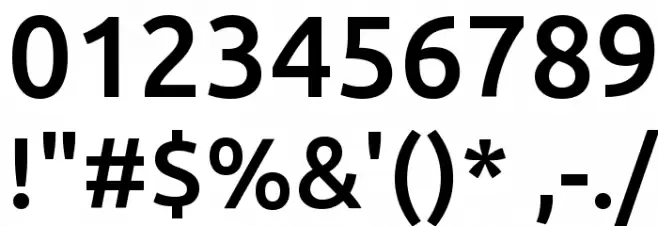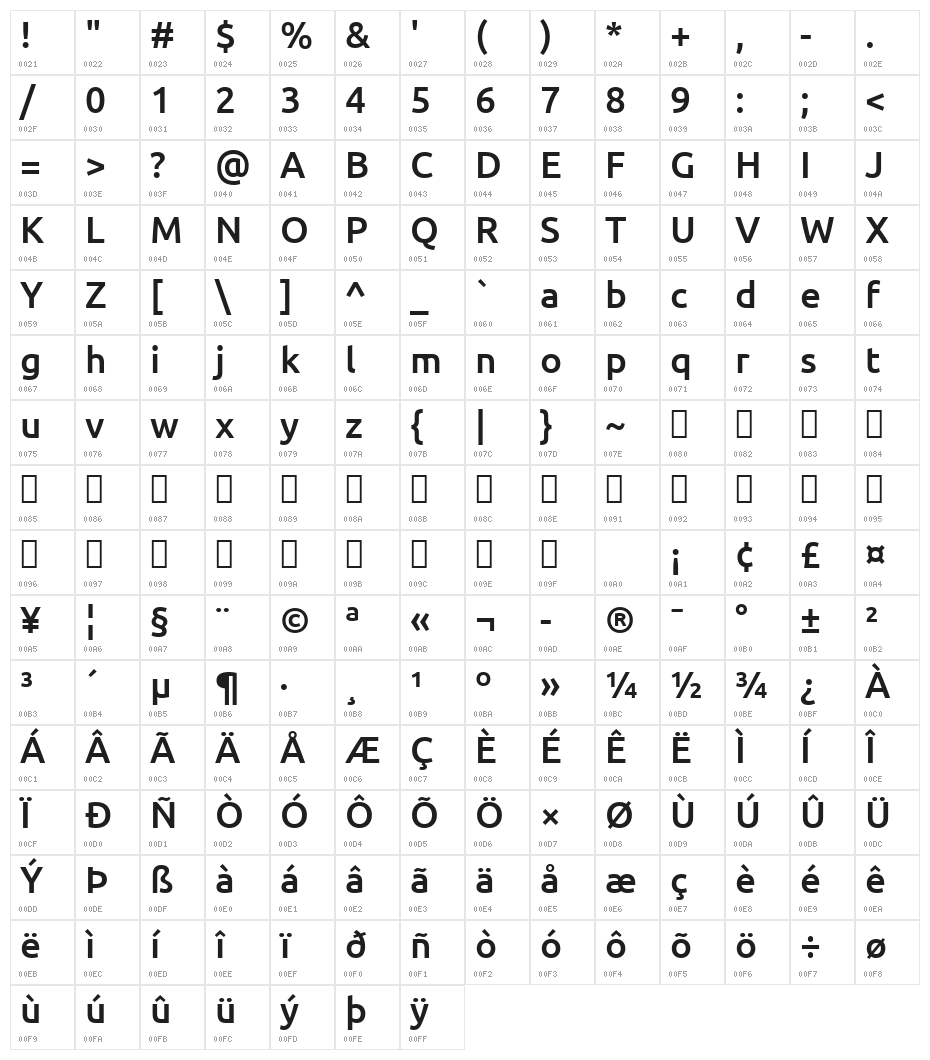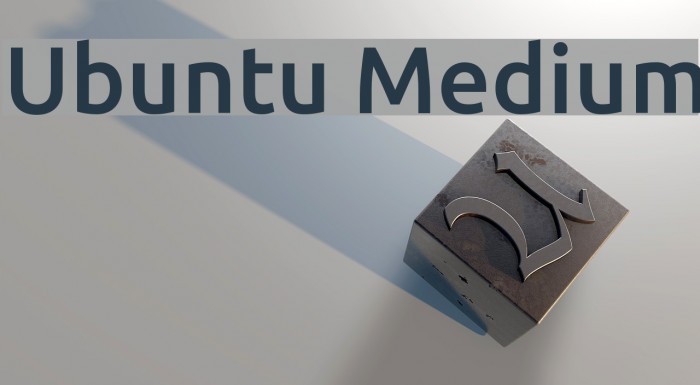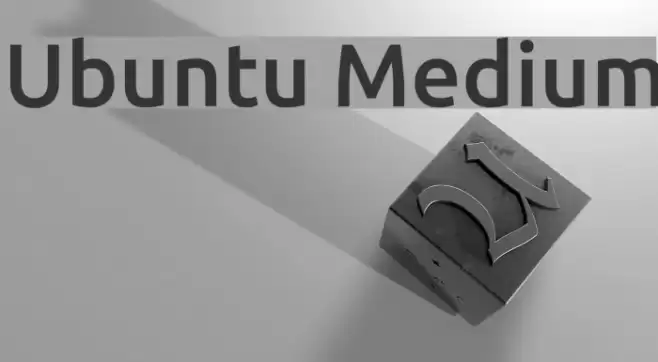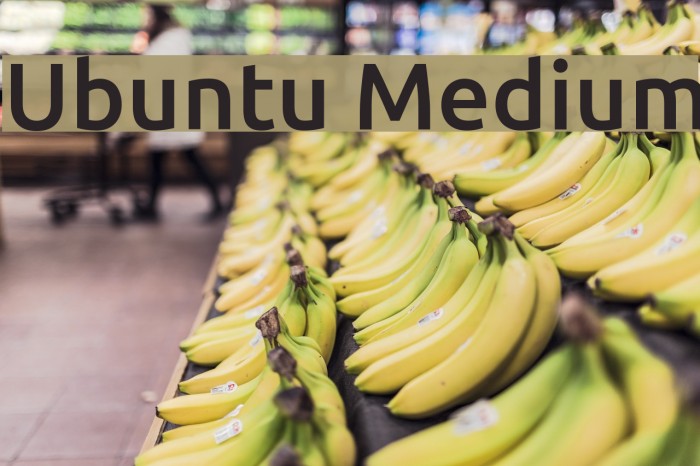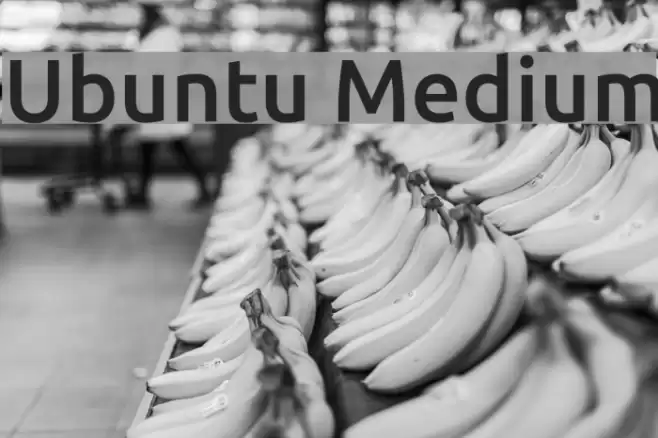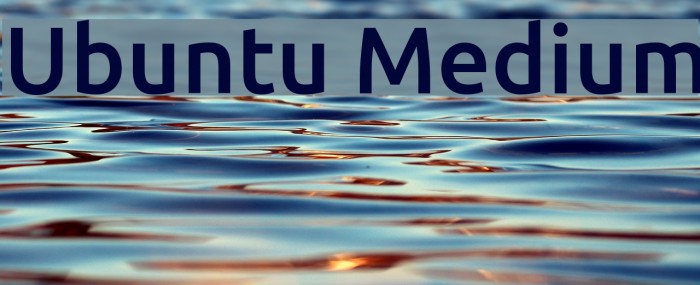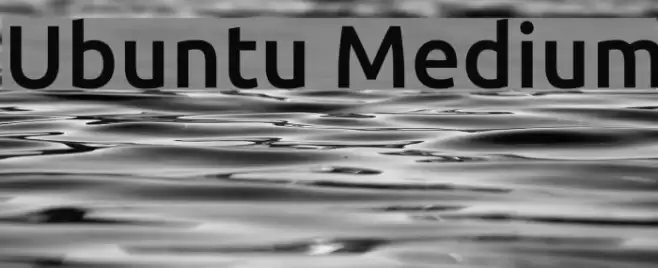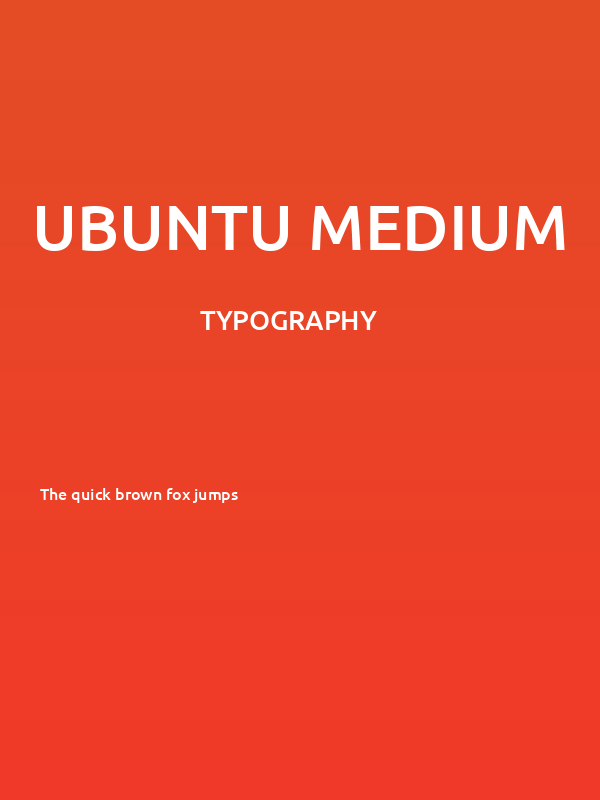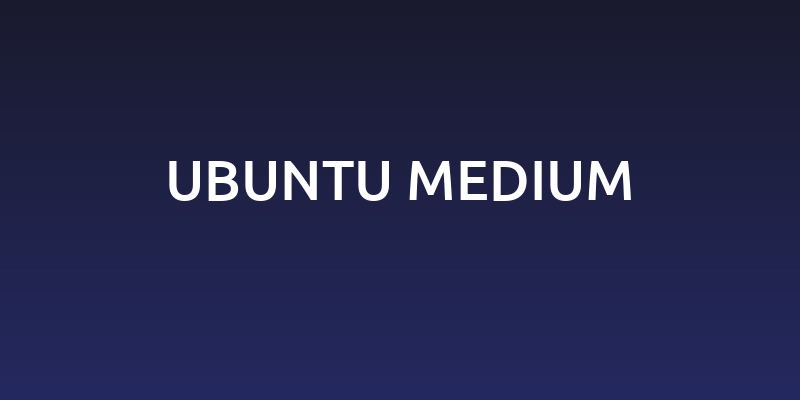
Ubuntu Medium Font
Ubuntu Medium Description
This font features a clean and modern sans-serif style with a balanced and harmonious appearance. The characters are well-proportioned, offering a consistent and readable look across both uppercase and lowercase letters. The numerals are clear and distinct, making them suitable for a variety of applications. The special characters are designed to complement the overall aesthetic, ensuring versatility in usage. Its medium weight provides a solid presence without being overwhelming, making it ideal for both digital and print media. The font's design emphasizes clarity and functionality, making it a popular choice for user interfaces and branding.
| Proposed Projects | Ideal for user interfaces, branding, web design, and print media. |